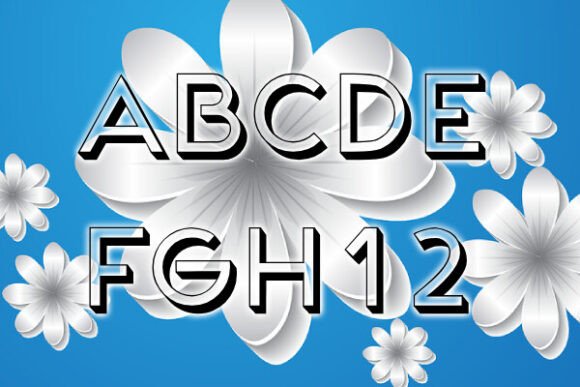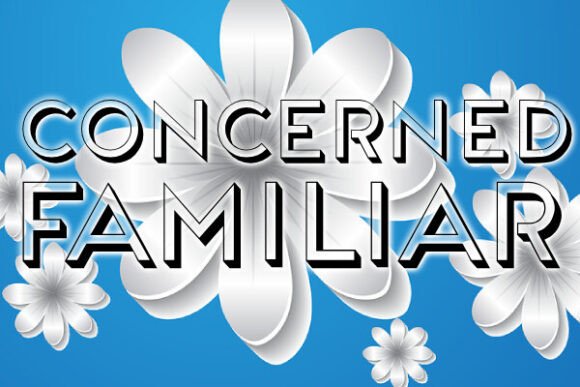
Introduction to Qagcaka Font
You know that feeling when you’re working on a creative project, and you’re stuck trying to find the perfect font to bring your design to life? I’m sure you’ve been there – scrolling through font libraries, searching for that one special font that will elevate your design and make it truly stand out. Well, I’m excited to introduce you to a game-changing font that will revolutionize your design process: the Qagcaka Font.
This awesome 3D font is a design resource that will add a new dimension to your designs, whether you’re working on posters, flyers, or brochures. With its high-quality design and transparent background, the Qagcaka Font is the perfect addition to any creative project. And the best part? It’s available for free download, making it an invaluable resource for designers of all levels.
Key Features of Qagcaka Font
- The Qagcaka Font is a free design resource ideal for creative projects requiring high-quality typography.
- This font features a transparent background, making it perfect for use on images or videos with subtle text overlays.
- The Qagcaka Font is designed to be highly legible, with clear and crisp characters that make it an excellent choice for body text in creative projects.
- Its unique blend of modern and vintage elements makes the Qagcaka Font a versatile design tool suitable for a wide range of creative applications.
Honest Review: Qagcaka Font
I recently had the chance to work with the Qagcaka Font on a creative project, and I must say, it’s been a game-changer. ✨ The font is incredibly versatile, making it perfect for a wide range of design projects. Its high quality is evident in the detailed and unique characters, which add a touch of sophistication to any design.
One of the things I love about the Qagcaka Font is its ability to work seamlessly with transparent backgrounds. It’s a design resource that truly stands out, and I’ve found myself reaching for it time and time again. The free download option is also a huge plus, making it accessible to designers of all levels.
Here are some of the things that work well with the Qagcaka Font:
- High-quality characters that are perfect for creative projects
- Ability to work with transparent backgrounds
However, I do have a few limitations to mention:
- Some users may find the font too decorative, making it difficult to read in certain contexts
- The font may not be suitable for body text in certain projects
Overall, I’m thoroughly impressed with the Qagcaka Font and would highly recommend it to designers looking for a unique and high-quality design resource.
The Qagcaka Font is a versatile design resource ideal for creative projects requiring high-quality typography. Its transparent background makes it a perfect choice for overlaying text on images or videos.
Getting the Most Out of Qagcaka Font
For optimal results, use the Qagcaka Font in conjunction with a high-quality image or background. Experiment with different font sizes, colors, and styles to create a unique look that suits your design.
The Qagcaka Font is ideal for a variety of design projects, including: